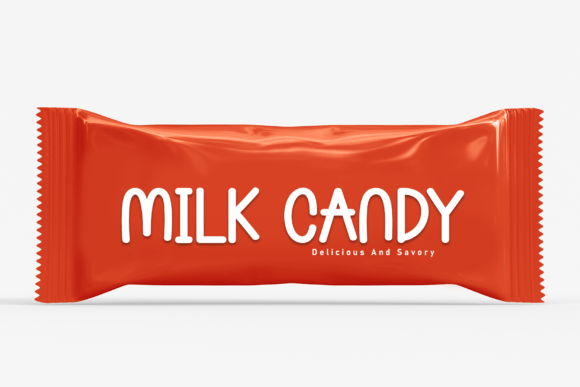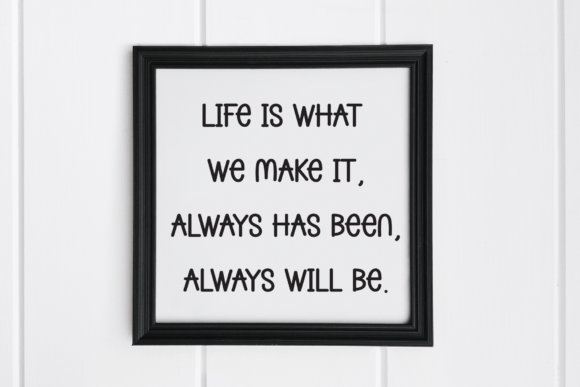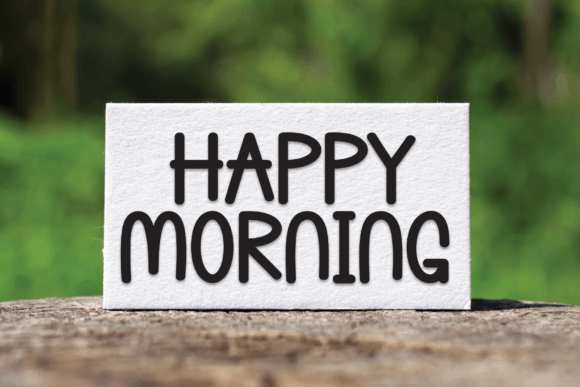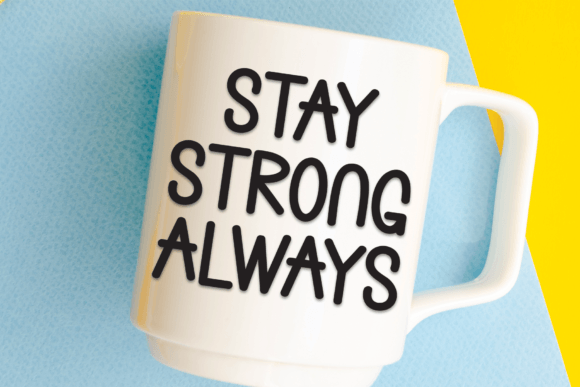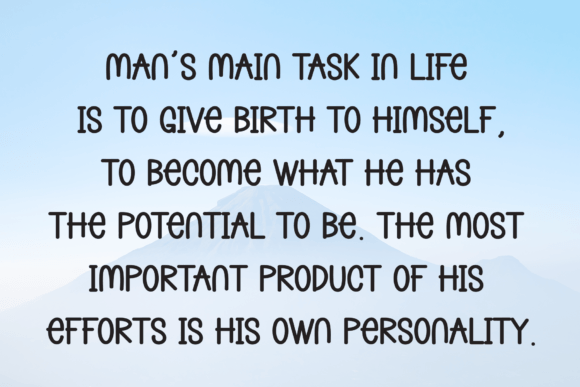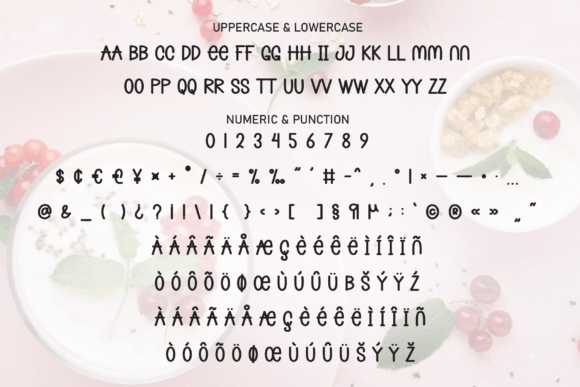
Cream Yogurt Font: Elevate Your Designs with Elegance and Charm
In the world of typography, fonts play a crucial role in conveying the tone and personality of a design. For designers and crafters looking to add a touch of sophistication and warmth to their projects, the Cream Yogurt font is an excellent choice. This stylish handwritten font is designed to exude elegance and charm, making it perfect for a wide range of applications, from invitations and branding to social media and more.
The Characteristics of Cream Yogurt Font
Cream Yogurt is a beautifully crafted handwritten font that boasts fluid strokes and a natural flow. Its captivating and sophisticated look is sure to elevate any design, adding a personal touch that sets it apart from more traditional fonts. The font’s unique characteristics include:
- Fluid Strokes: The font’s smooth, flowing strokes create a sense of movement and elegance, making it perfect for designs that require a touch of sophistication.
- Natural Flow: The natural flow of the font gives it a organic, handmade feel that is both charming and inviting.
- Handwritten Style: The font’s handwritten style adds a personal touch to any design, making it perfect for projects that require a more human approach.
Uses for Cream Yogurt Font
The Cream Yogurt font is incredibly versatile, making it suitable for a wide range of applications. Some of the most popular uses for this font include:
- Invitations: Add a touch of elegance and sophistication to your invitations, making them perfect for weddings, parties, and other special occasions.
- Branding: Use the Cream Yogurt font to create a unique and memorable brand identity that sets your business apart from the competition.
- Social Media: Elevate your social media presence with the Cream Yogurt font, using it to create eye-catching graphics, posts, and stories.
- Stationery: Add a personal touch to your stationery, including letters, cards, and other paper goods.
Benefits of Using Cream Yogurt Font
The Cream Yogurt font offers a range of benefits for designers and crafters, including:
- Elegance and Sophistication: The font’s elegant and sophisticated design makes it perfect for projects that require a touch of refinement.
- Warmth and Creativity: The font’s natural flow and handwritten style add a sense of warmth and creativity to any design.
- Versatility: The font’s versatility makes it suitable for a wide range of applications, from invitations and branding to social media and more.
Tips for Using Cream Yogurt Font
To get the most out of the Cream Yogurt font, follow these tips:
- Pair it with Other Fonts: Pair the Cream Yogurt font with other fonts to create a unique and eye-catching design.
- Experiment with Colors: Experiment with different colors to find the perfect combination that complements the font.
- Use it Sparingly: Use the Cream Yogurt font sparingly to create a sense of elegance and sophistication.
The Cream Yogurt font is a stylish and elegant handwritten font that is perfect for designers and crafters looking to add a touch of sophistication and warmth to their projects. Its fluid strokes, natural flow, and handwritten style make it a versatile font that can be used in a wide range of applications. Whether you’re creating invitations, branding, or social media graphics, the Cream Yogurt font is sure to elevate your designs and add a personal touch that sets them apart.